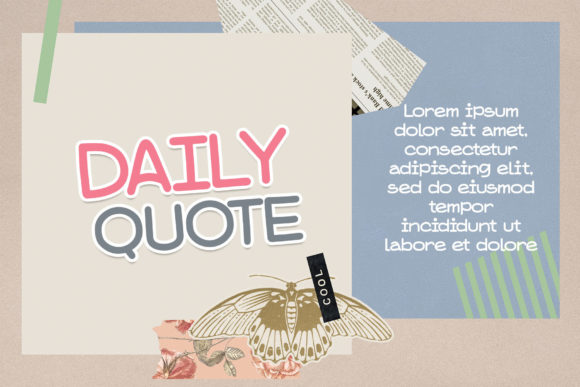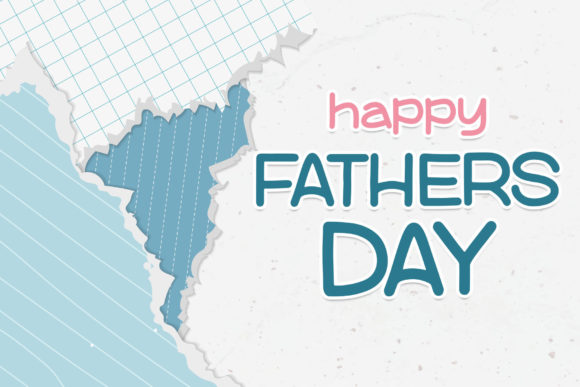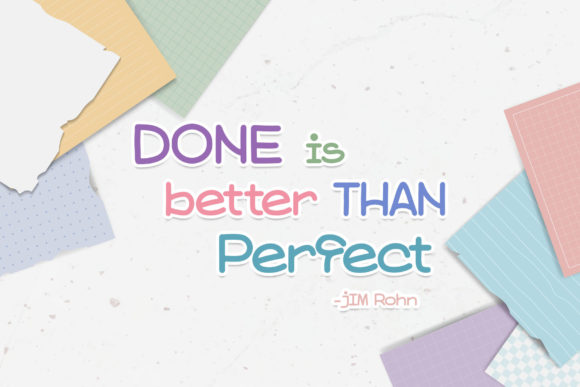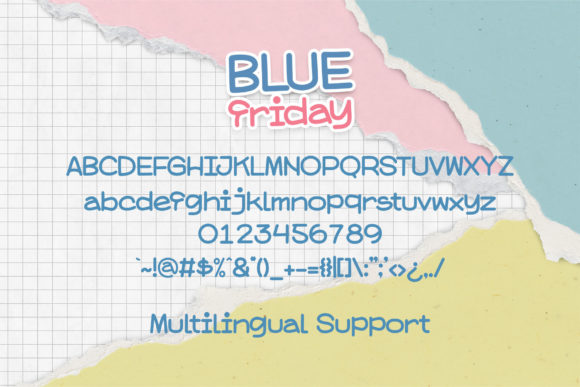
Introducing Blue Friday Font: The Perfect Addition to Your Design Arsenal
Are you tired of using the same old fonts in your designs? Look no further! Blue Friday Font is a fun and quirky sans serif font that’s sure to add a touch of personality to your projects. In this article, we’ll dive into the features and benefits of Blue Friday Font, and explore how it can elevate your designs, especially for DIY products.
What is Blue Friday Font?
Blue Friday Font is a clean monoline font that’s perfect for display or any other purpose. Its sans serif design gives it a modern and sleek look, making it ideal for a wide range of applications. Whether you’re designing a logo, creating a social media graphic, or crafting a promotional material for your DIY product, Blue Friday Font is a versatile choice that can help you stand out.
Key Features of Blue Friday Font
- Clean and Modern Design: Blue Friday Font boasts a clean and modern design that’s perfect for creating a lasting impression.
- Sans Serif: The font’s sans serif design makes it easy to read and versatile for various applications.
- Monoline: The monoline design gives the font a sleek and cohesive look.
- Fun and Quirky: Blue Friday Font has a playful touch that’s sure to add personality to your designs.
Benefits of Using Blue Friday Font
So, why should you choose Blue Friday Font for your designs? Here are just a few benefits:
- Stand Out: With Blue Friday Font, you can create designs that stand out from the crowd and grab attention.
- Versatility: The font’s versatility makes it perfect for a wide range of applications, from display to body text.
- Ease of Use: Blue Friday Font is easy to read and works well in various contexts, making it a great choice for designers and crafters.
- DIY-Friendly: The font is perfect for DIY product designers, allowing them to create professional-looking materials without extensive design experience.
How to Use Blue Friday Font for DIY Products
If you’re a crafter or DIY product designer, you know how important it is to create visually appealing materials that showcase your products. Blue Friday Font can help you achieve just that. Here are some ideas:
- Product Labels: Use Blue Friday Font to create eye-catching product labels that showcase your brand’s personality.
- Social Media Graphics: Create engaging social media graphics that showcase your products and attract potential customers.
- Promotional Materials: Use Blue Friday Font to create promotional materials, such as flyers, brochures, or posters, that effectively communicate your brand’s message.
- Packaging Design: Add a personal touch to your product packaging with Blue Friday Font, making it more recognizable and memorable.
Tips for Getting the Most Out of Blue Friday Font
To get the most out of Blue Friday Font, here are some tips:
- Experiment with Colors: Play around with different colors to find the perfect combination that matches your brand’s identity.
- Pair with Other Fonts: Experiment with pairing Blue Friday Font with other fonts to create a unique visual identity.
- Use it Consistently: Use Blue Friday Font consistently across all your designs to create a cohesive brand image.
Blue Friday Font is a fun and quirky sans serif font that’s perfect for designers and crafters looking to add a touch of personality to their designs. Its clean monoline design, versatility, and ease of use make it an excellent choice for a wide range of applications. Whether you’re designing a logo, creating social media graphics, or crafting promotional materials for your DIY product, Blue Friday Font is sure to help you stand out. So, why not give it a try and see how it can elevate your designs?